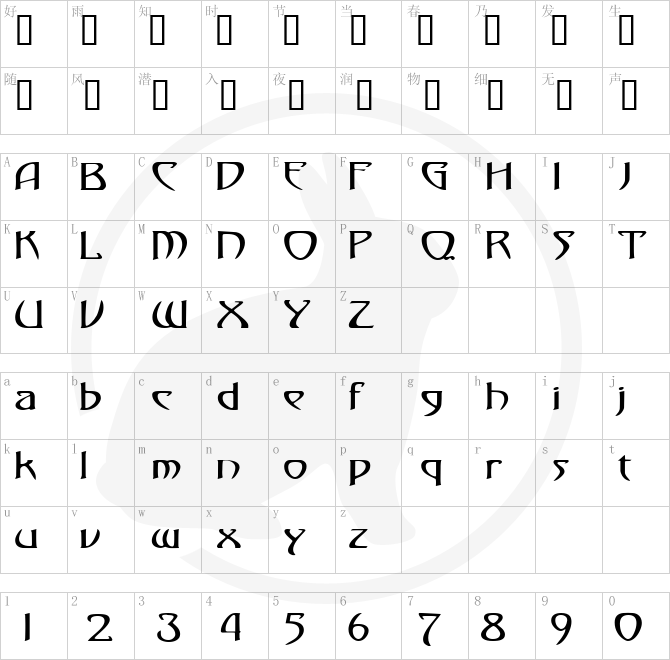
- Font Name:Saga-Expanded
- Full Name:Saga-Expanded Normal
Saga-Expanded-Normal.ttf is a very beautiful artistic font, Saga-Expanded-Normal.ttf is widely used in the design and printing of various books and pictures,Saga-Expanded-Normal.ttf has a strong visual impact,Saga-Expanded-Normal.ttf is a commonly used font in newspapers, magazines and books, and is used in posters, e-commerce Poster design, store design, logo design, font design and other fields.Saga-Expanded-Normal.